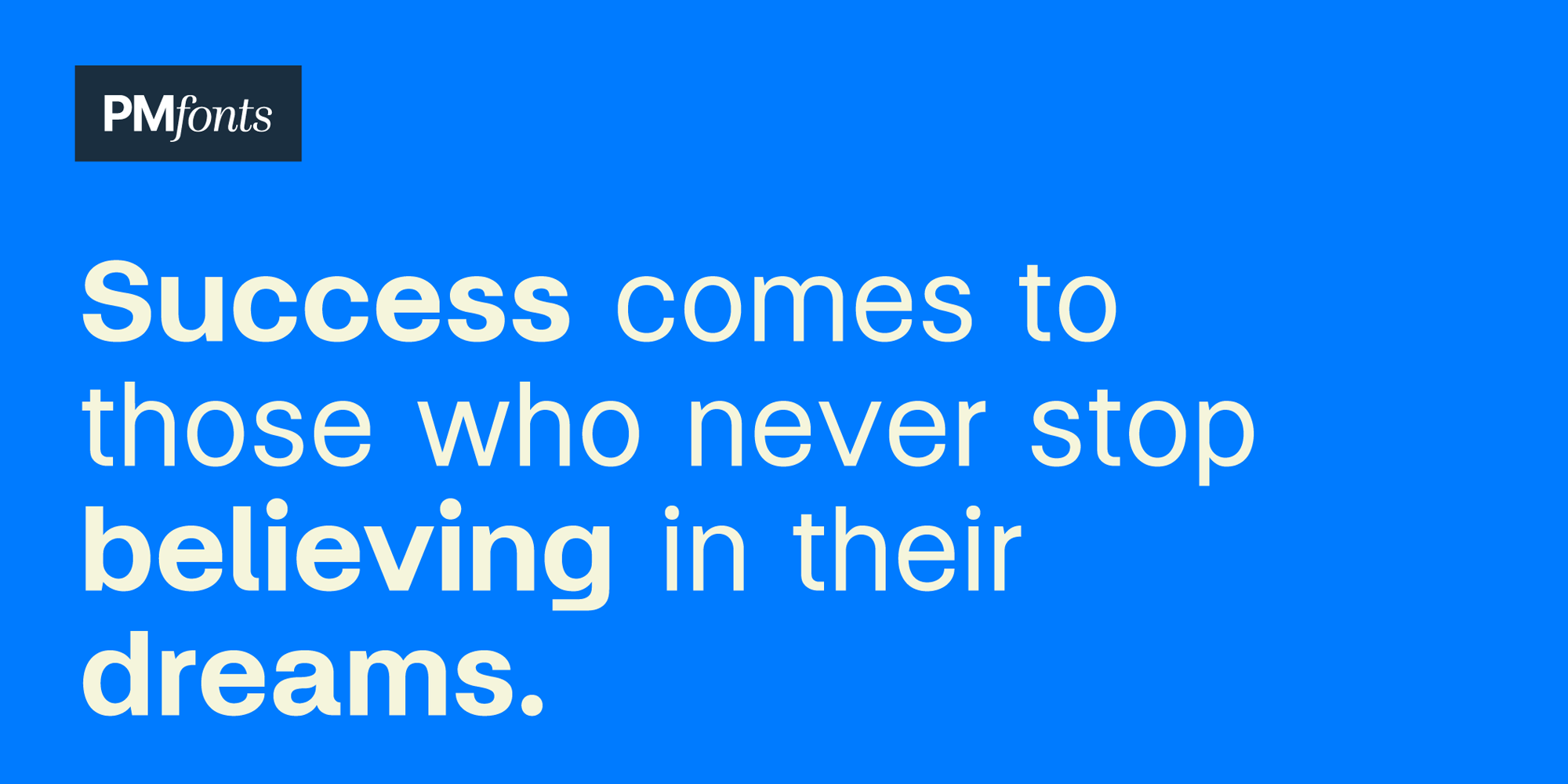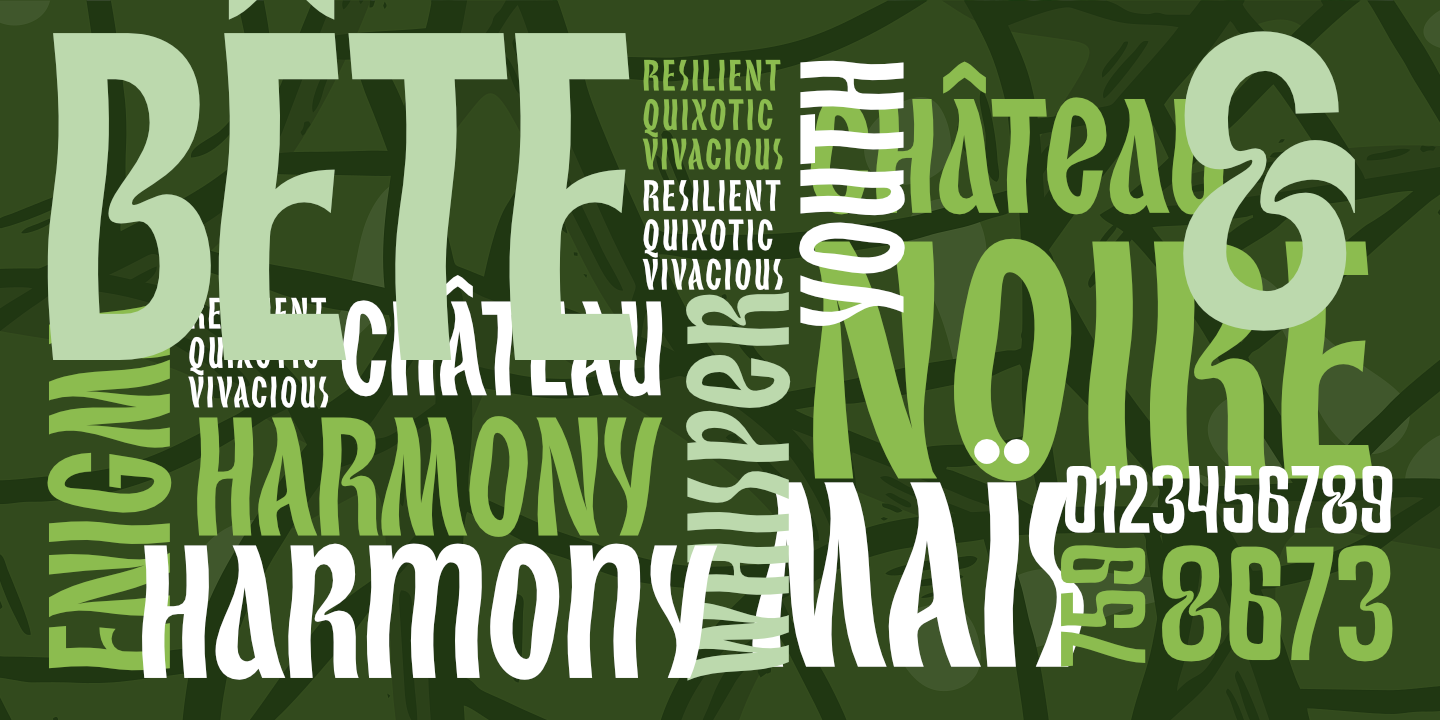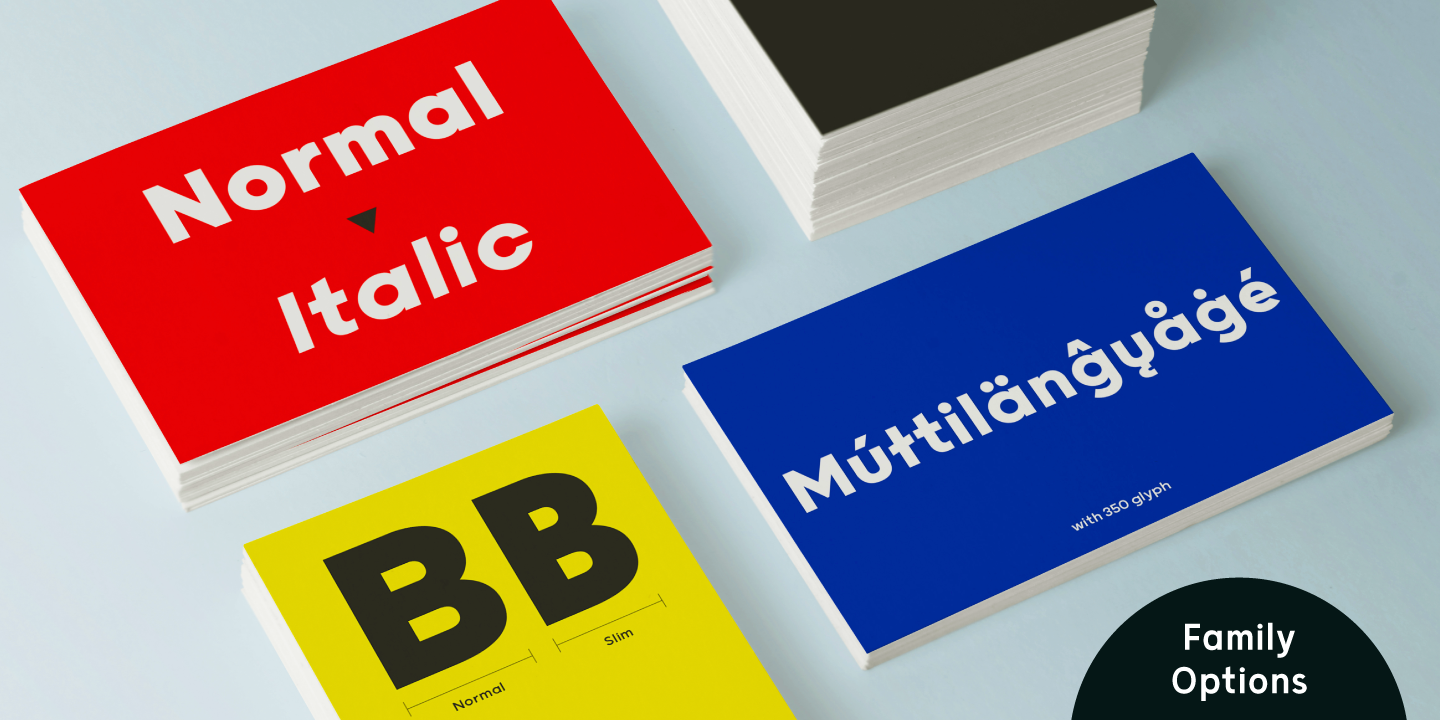
A modern sans serif typeface designed to give your projects a sleek, contemporary edge. With a robust family of 40 fonts spanning 10 weights and slim variations, Grold offers unmatched versatility and flexibility. Whether you're crafting bold headlines, refined branding, or intricate layouts, this font family has the perfect option to suit your creative vision.
Grold shines in its ability to adapt seamlessly to a wide range of applications, from eye-catching headlines to highly readable small text. Plus, its support for multiple languages makes it an excellent choice for global projects. 40 fonts for $160 $112 | |
Struggling with Font Choices? Liberty Neue Has You Covered
Step into the future of design with Liberty Neue, a typeface that seamlessly combines clarity with contemporary aesthetics. Its geometric forms and perfectly balanced proportions make it a standout choice for designers looking to achieve both style and readability. Whether you're crafting a sleek digital interface or setting the tone for a brand, Liberty Neue delivers unmatched versatility with its range of weights.
Experience the power of clean design and adaptability with Liberty Neue. This font not only supports extensive language options, ensuring your message is understood globally, but also maintains a consistent aesthetic across various applications. Make Liberty Neue your go-to choice for projects that demand both impact and clarity. 9 fonts for $70 $49 | |
Elegance in Every Wavy Curve.
Discover the elegance of Serway, a typeface that beautifully marries sophistication with a dash of whimsy. Its signature wavy stems give each letter a sense of movement and fluidity, reminiscent of gentle waves or the wind's caress through tall grasses. This organic flow brings a unique charm to your designs, setting them apart with a harmonious visual rhythm.
Embrace the modern simplicity of Serway's sans serif design, perfect for those who appreciate clean lines and a contemporary touch. Whether you're working on editorial design, packaging, or web layouts, Serway's distinctiveness promises to captivate and leave a lasting impression. 1 font for $20 $14 | |
Break the Mold with Gridbox – This Bold & Unique Font Awaits! Unleash your creativity with Gridbox, a typeface that's anything but ordinary. Designed for those who dare to be different, Gridbox offers bold, edgy characters that break free from the conventional. Its sharp geometry and unique form are perfect for making a statement in any project, whether it's a modern brand or an artistic display. Embrace the unexpected with Gridbox and see how its strong personality can transform your designs. Perfect for projects that demand attention, this font is ready to make your work stand out from the crowd. 2 fonts for $20 $16 | |